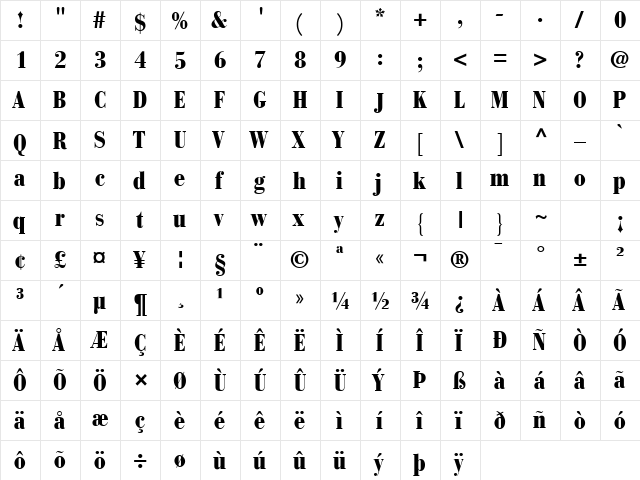
Bodoni Recut BlackCondensed SSi Normal
Design Context for Bodoni Recut BlackCondensed SSi Typeface
Bodoni Recut BlackCondensed SSi is a composed and adaptable typeface that performs quietly and consistently across a wide range of design contexts. The condensed width makes it efficient for tight spaces without sacrificing legibility.